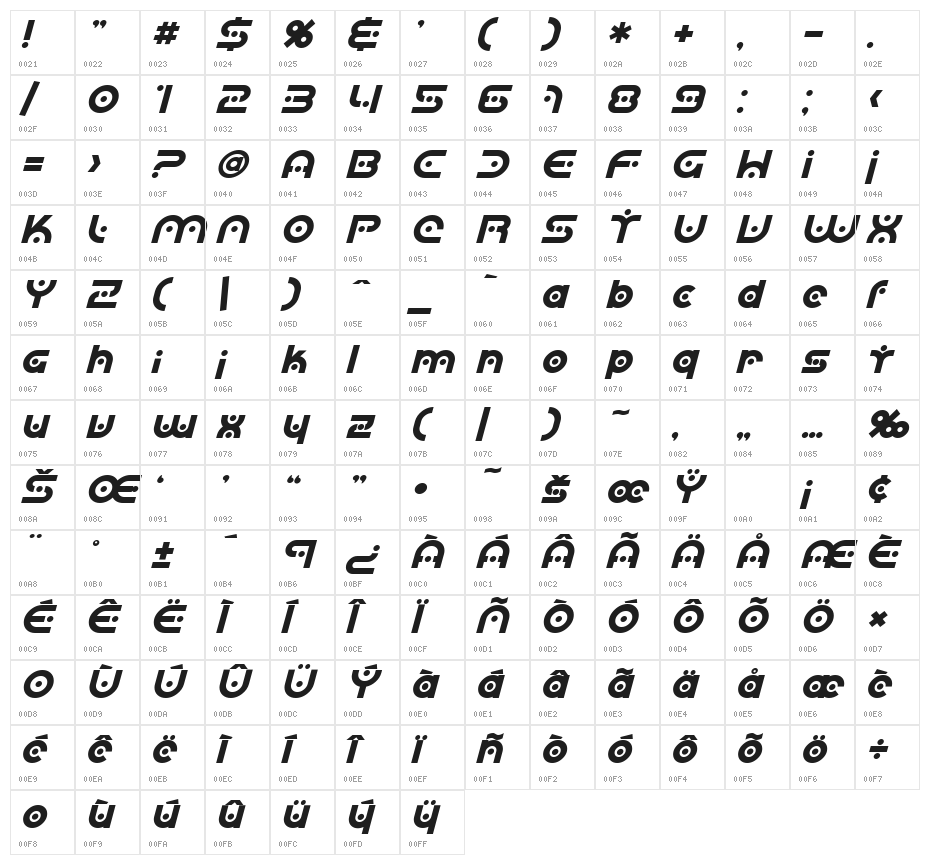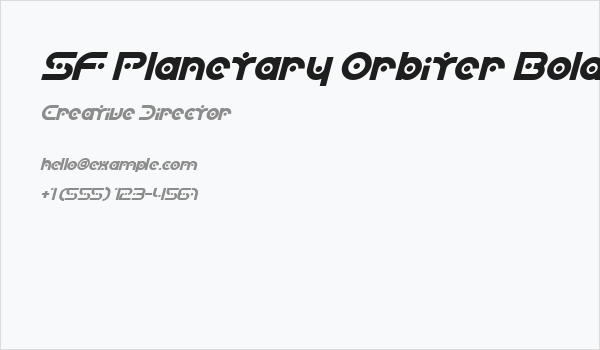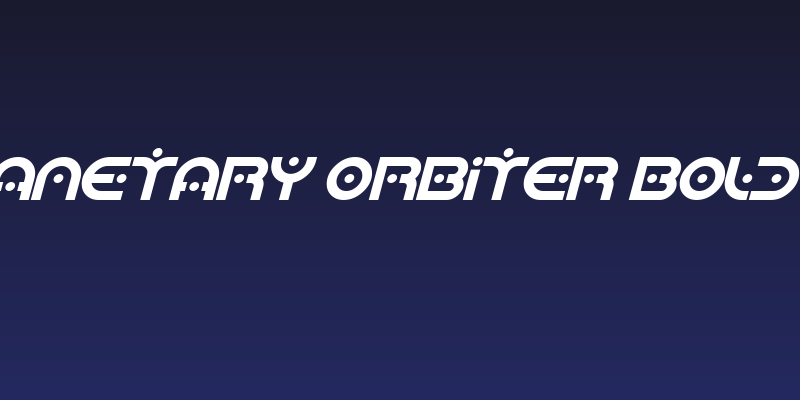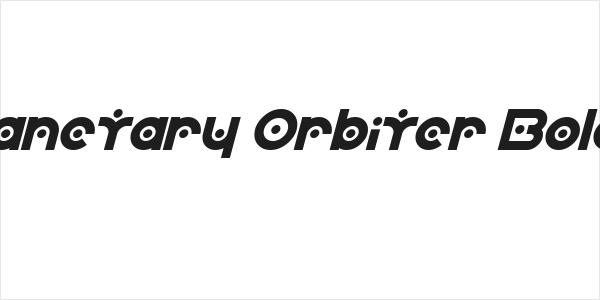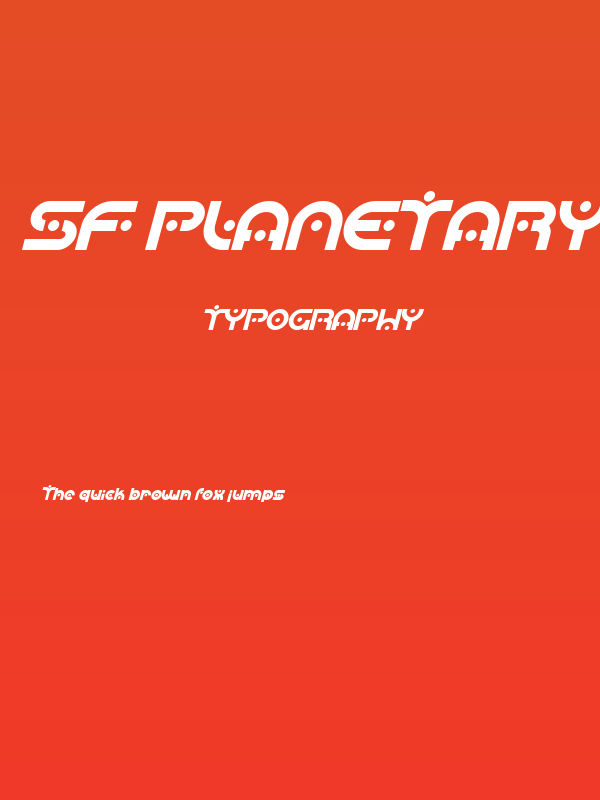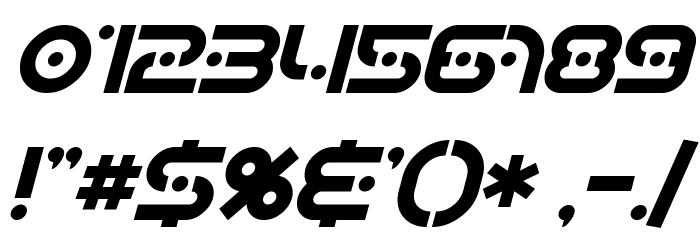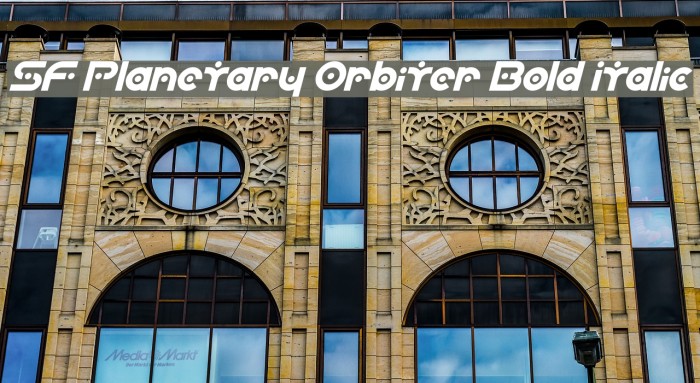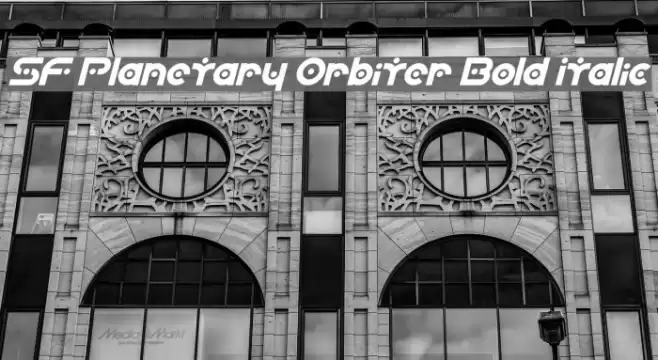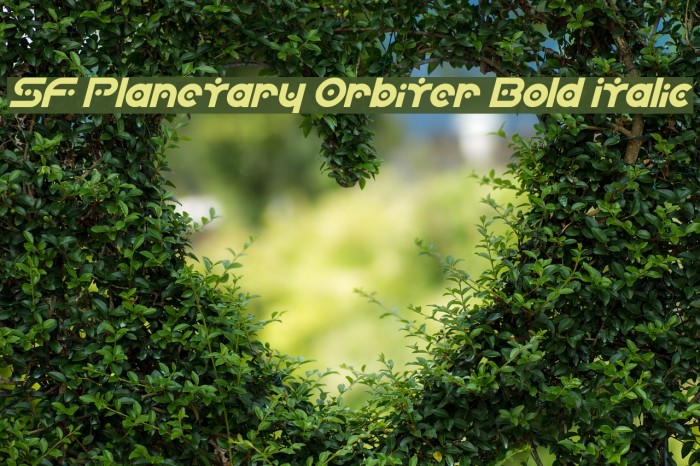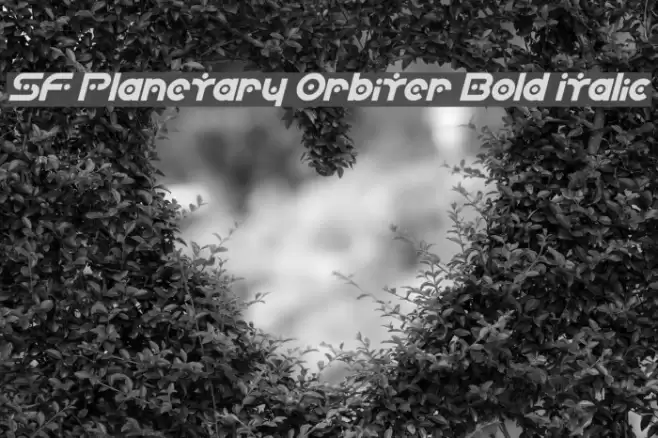
SF Planetary Orbiter Bold Italic Font
SF Planetary Orbiter Bold Italic Description
This font features a futuristic and bold design with a distinct italic slant, giving it a dynamic and forward-moving appearance. The characters are crafted with a unique blend of geometric shapes and smooth curves, creating a sense of motion and modernity. The uppercase and lowercase letters maintain a consistent style, with rounded edges and a slight disconnect in some strokes, adding to its sci-fi aesthetic. The numerals and special characters follow the same design principles, ensuring uniformity across all glyphs. This font is ideal for projects that require a modern and innovative look.
| Proposed Projects | Ideal for sci-fi themed projects, technology branding, video game titles, and futuristic posters. |